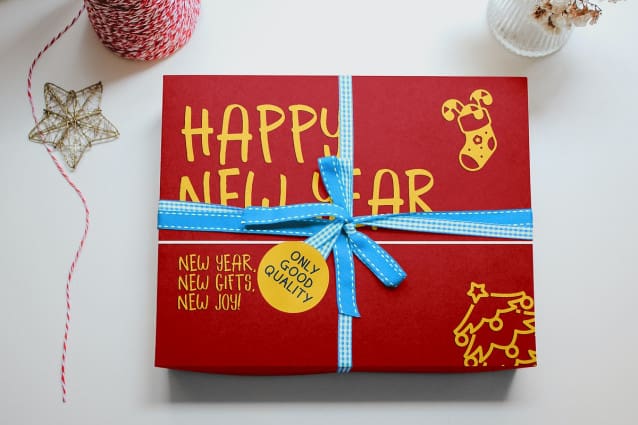
Drizzler Display Font
Drizzler Display Font – the festive, decorative sans font designed to sprinkle a touch of holiday cheer! With its tall, playful characters and fun, slightly quirky lines, Drizzler brings warmth and joy to your Christmas projects. Perfectly suited for holiday cards, gift tags, seasonal banners, and more, this font captures the whimsy of the season. Its unique, decorative style adds personality without overpowering, making it a delightful choice to elevate your designs. Embrace the spirit of the holidays with Drizzler and make your messages merry and bright!